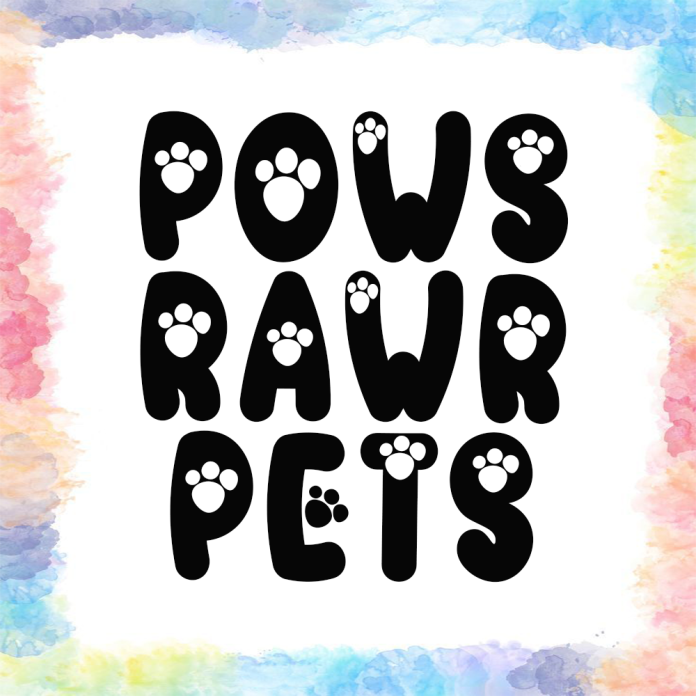
Paws Cat Font is a cute and casual handwritten font with an incredibly friendly feel. Whether you’re looking for fonts for Instagram or calligraphy scripts for DIY projects, this font will turn any creative idea into a true piece of art!